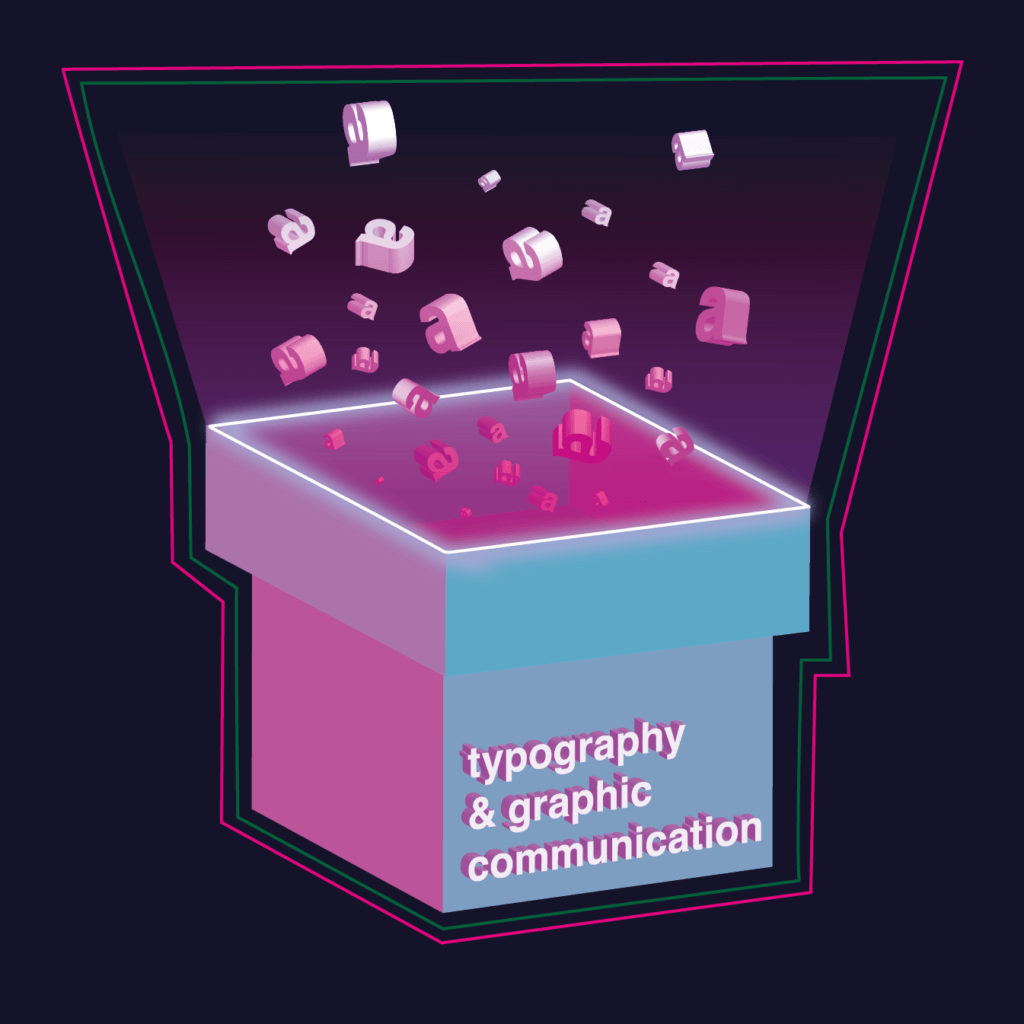
Design ideas and design process
The use of boxes and geometric shapes was my main concept for this project, as this is not only the style of work I relish engendering but also something I thought of being a personal challenge for myself in this particular task. I was also very keen on utilizing the letter ‘a’ in most of my sketches as I conceived of it as a ‘logo’ for the podcast: letter ‘a’ stands for the word aperture, as well as visualises the concrete feature of this letterform.
Albeit quite simple, my first design concept (Figure 01)inspired the rest of my final designs for this task in a subtle way. The sticker features a 3D letter ‘a’, which I have previously utilized for the branding of the podcast, as well as text that I positioned parallel to the x-height of the letter ‘a’. I have made this decision based on the designs I have fabricated for this project before producing the stickers.
The second design idea (Figure 02) was a lot more complex and has challenged me in many ways. The design features a block building with text that was carefully rendered on the ‘roof’ of the construction. I have also added geometrical ‘clouds’ to give this image more dimension and indicate some movement, rather than a still object/image. Regarding the colours, I have set with yellow and pink as they not only complement each other but also mimic the appearance of a sunset, decorating this image with more realistic elements.
My personal favourite was the last design idea presented on this page (Figure 03). Although I have had it in mind from the starting stages of the project, It took me a lot of experimentation and development to finalise this concept.
I have first begun by creating flat shapes (boxes) in the centre of the page. I have then used the ‘extrude & bevel’ tool to transform the 2D squares into cubes etc. Using these, I built the ‘box’ part of the design. I have repeated these steps for the letters and type in my design. At that point, I was quite happy with what I have had produced, and therefore I continued adding more effects such as the pink glow, that’s emerging from the box (Figure 04&05), to add a surreal element to the image. While I was quite fond of what I have created, I still felt like the image looked lifeless and flat, despite being portrayed in its 3D form.
To adapt this design, I used what I learnt – through my research about the program – to create and apply various effects. Firstly, I decided to intensify the glow emerging from the box. Since I made this using a semi-transparent gradient,
I attempted to change the colour to something lighter and more vibrant, but in the end, I decided to simply change the layer style to hard light, which seemed to work best with my design. Additionally, decided to add a glowing rim around the edge of the box, which is seen in the podcast cover and postcard designs. Although there’s an option in illustrator to create such effect within seconds, there’s little flexibility with this tool; therefore, I created the effect from scratch. Initially, I have duplicated outer rim of the box twice. Subsequently, I chose the colours and locked one of the copies in place, while increasing the stroke width of the second outline. Lastly, I applied a gaussian blur to the thicker outline which softened the stroke, resulting in a glowing effect (Figure 06).
To make this design even more vivid, I experimented with the shadows around the box, finally deciding on using a shade of fuchsia pink (Figure 07&08), which I selected using the colour guide tool in illustrator. I feel like this adaptation to my initial design is what really elevated it, and made it look more like the stickers I looked at while preparing for this task.
Once satisfied with the outcome, I added a few more finishing touches including more floating letters, with varied angles and perspectives to make them appear like they are levitating in the air.
As I haven’t used Illustrator for over eight months, the essential tutorials refreshed my recollection on this subject. Preferably, I fixated on watching a few more tutorials on LinkedIn learning. I probed for videos about logo design, as I considered the sticker as something that can be utilized as a logo for the podcast. One video that I found auxiliary in my studies was Logo Design: Techniques (2016), as it explicated how to produce different effects that we visually perceive in subsisting logo designs. The video, in lieu of explicating how to utilize the built-in implements in Illustrator, gave an in-depth guide on how to create those effects using paths/transformation tools etc. which gave me flexibility within my design. Furthermore, I’ve also watched a few sections from Illustrator Essential Training (2020) to help me become more confident at using the pen tool, which I relied on to create the cutting outlines for my designs. Since my sticker designs were purely typographical and geometrical, I haven’t had the chance to improve my ability to use the pen tool: I’d like to create more complex vector illustrations using this tool, to help me with work on other modules. Over the next few months, I’d like to develop this skill, by watching more creating more logo and sticker designs based on what I have learnt.
Resources for research and inspiration
I have first approached this project by producing a rough plan of what I’d like to-do: where to commence, what existing imagery I should visually examine etc (Figure 10). Once I’ve done that, I began sketching conceptions by hand; these were rough drawings of visuals/shapes I wished to include in my design. I have also looked at existing sticker designs across a popular merchandise website, that sells stickers made by contemporary designers, like myself, redbubble.com. I have also visited Behance and looked at how professional designers create their stickers and artwork, what features, colours and effects they use. Analysing these, prior to the design stage, helped me figure out how I’d like my sticker to look like, in terms of colour and its overall aesthetic. I’ve created a mood board using a few screen-shots of my favourite imagery for reference, to look back at when I’m searching for inspiration.